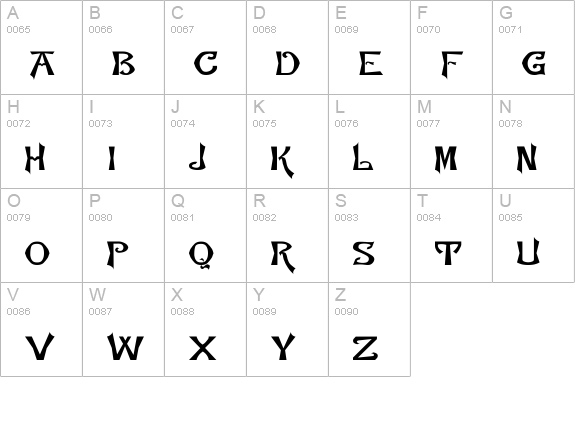
Flemish-Normal Ex is the standard, neutral variant in the Flemish typeface family \xE2\x80\x94 well suited to general body text, paragraphs, and standard typographic work.
Flemish-Normal Ex font is a timeless and elegant typeface that exudes sophistication and charm. With its classic design and refined curves, this font is perfect for adding a touch of traditional beauty to any project. The clean lines and balanced proportions of Flemish-Normal Ex make it versatile and easy to read, making it ideal for both print and digital applications. This font is available for free download at FontsMarket.com, making it accessible to anyone looking to enhance their designs with a touch of grace and elegance. Whether you're designing a wedding invitation, a logo, or a magazine spread, Flemish-Normal Ex is sure to elevate your work with its timeless appeal. Download this exquisite font today and add a touch of classic beauty to your projects.